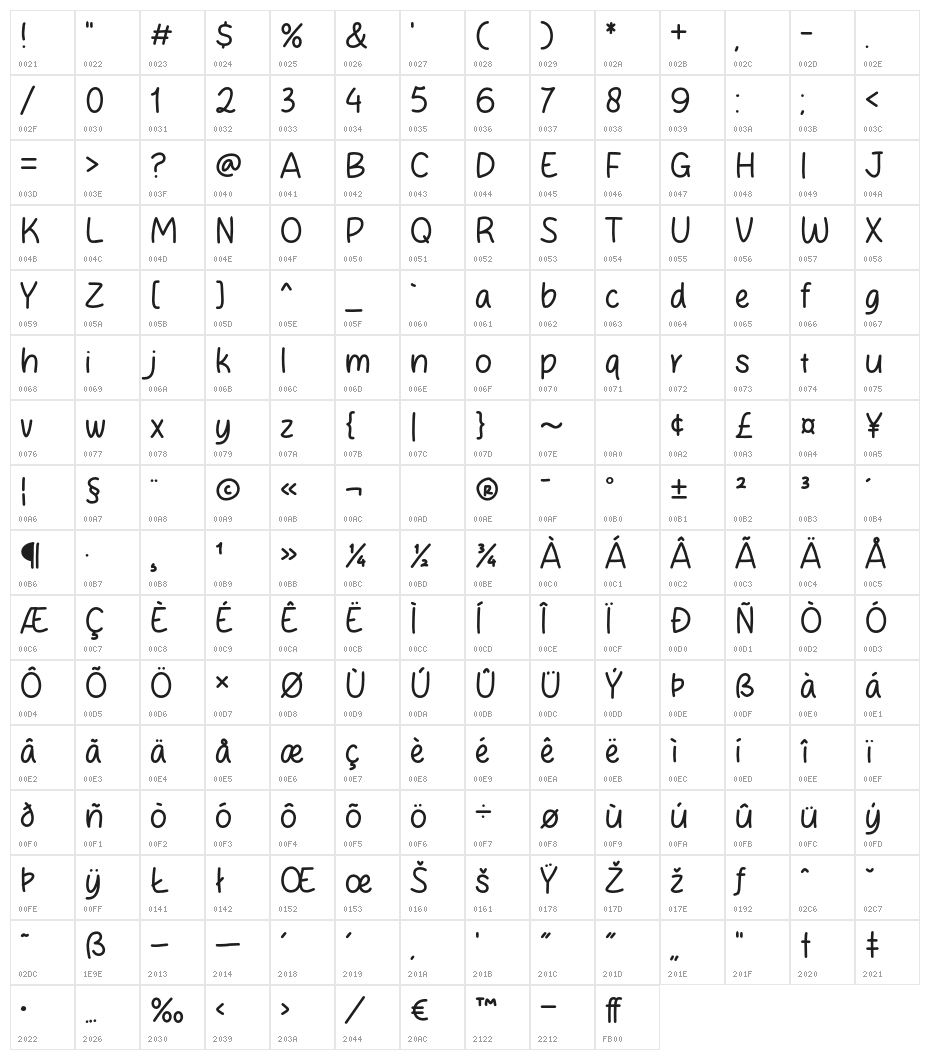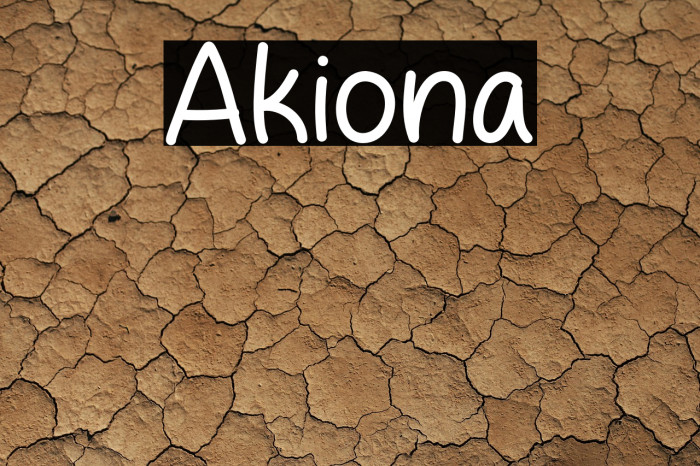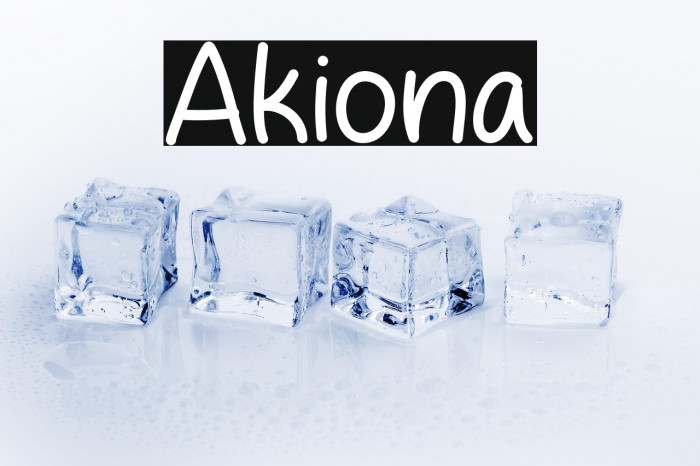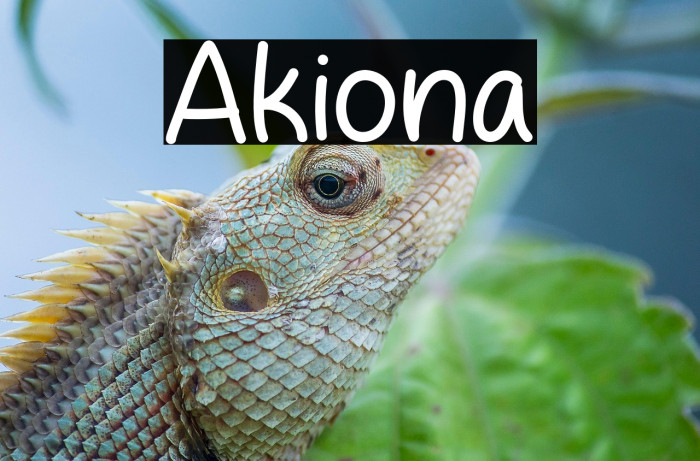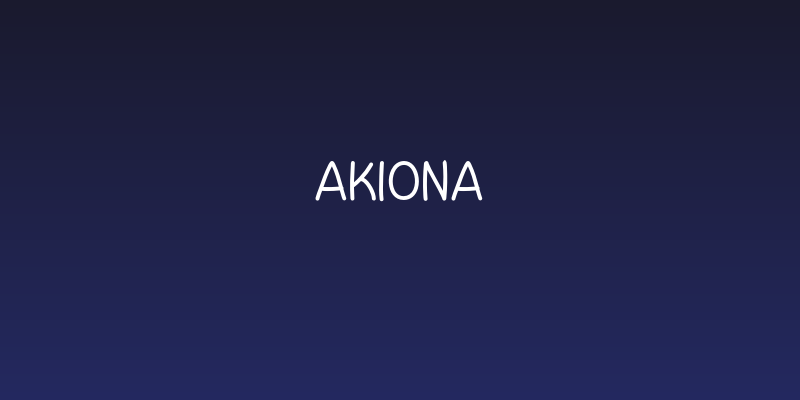
Akiona Font
Akiona Description
This font features a playful and informal handwritten style, characterized by its rounded and smooth strokes. The letters are slightly slanted, giving a casual and friendly appearance. The uppercase and lowercase letters maintain a consistent style, with a slight variation in size and shape that adds to the font's charm. The numerals are clear and easy to read, matching the overall aesthetic of the alphabet. Special characters are included, maintaining the same playful and approachable design. This font is ideal for projects that require a personal touch or a sense of whimsy.
| Proposed Projects | Ideal for greeting cards, children's books, playful branding, and casual invitations. |